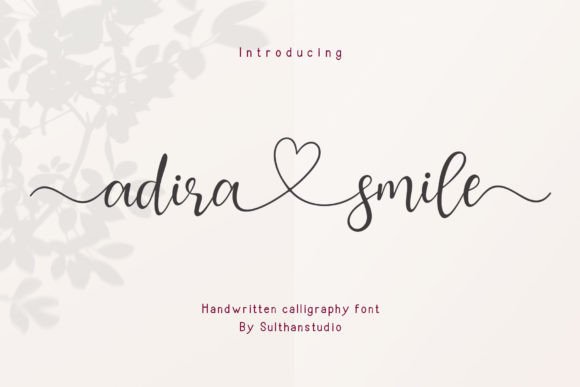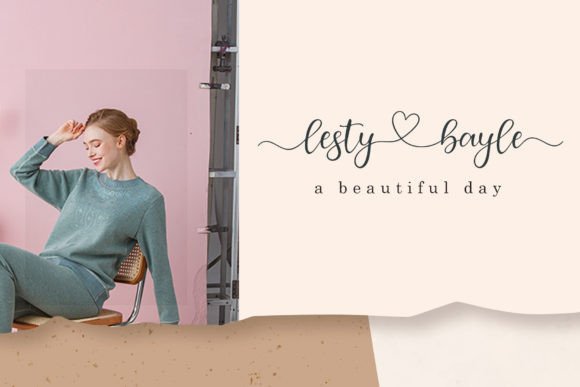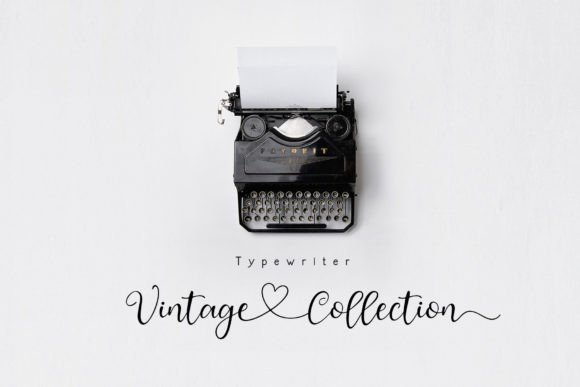
Adira Smile Font
About the Adira Smile Font
We are excited to introduce Adira Smile Font, a must-have typeface for any serious designer. Adira Smile feels equally charming and elegant. It looks stunning on wedding invitations, thank you cards, quotes, greeting cards, logos, business cards, and every other design which needs a handwritten touch.
Adira Smile’s elegant charm makes it ideal for branding projects requiring a touch of sophistication, particularly those related to weddings, beauty, or luxury goods. It excels in headlines, short text blocks, and logos, adding a personalized feel. However, its delicate nature makes it unsuitable for body text or extended reading; legibility suffers in smaller sizes or within long paragraphs. Avoid using it in UI contexts demanding high readability.
Pairing Adira Smile with a clean sans-serif like Lato for body text creates a balanced and modern aesthetic. For a more classic feel, consider pairing it with a traditional serif font such as Garamond. A playful script font could also complement it, depending on the overall brand message, adding a touch of whimsy without overwhelming Adira Smile’s inherent elegance.
Its core personality is best described as sophisticated and friendly; it conveys both charm and a sense of quiet confidence. This makes it a strong choice for brands wanting to project an approachable yet refined image.
Adira Smile Font Usage Examples
Adira Smile Font Example